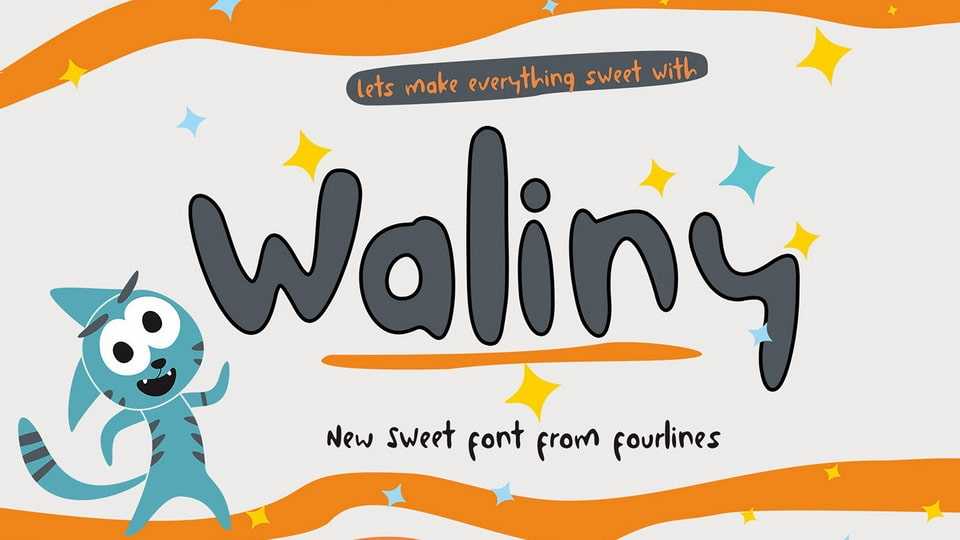
Download Waliny font, a delightful hand-drawn typeface that exudes fun, sweetness, and organic charm. Waliny font is lovingly crafted with playful strokes and whimsical details, capturing the essence of carefree creativity and natural beauty.
Designer: Fourlines Design